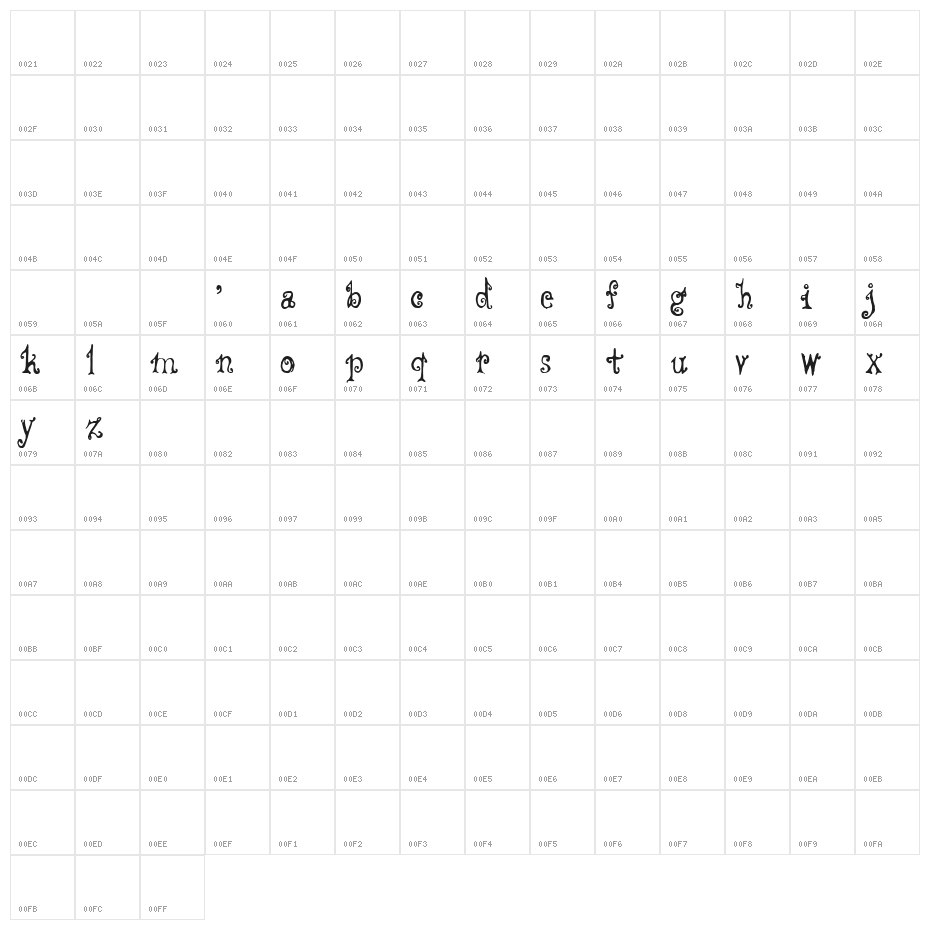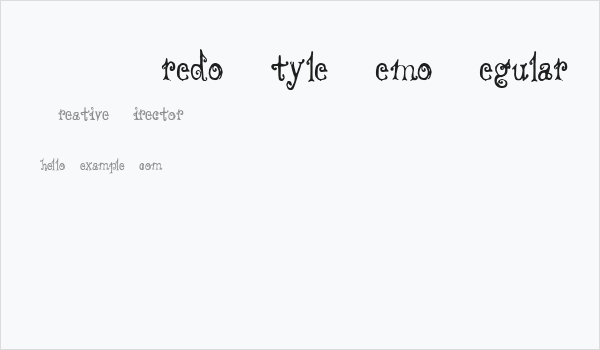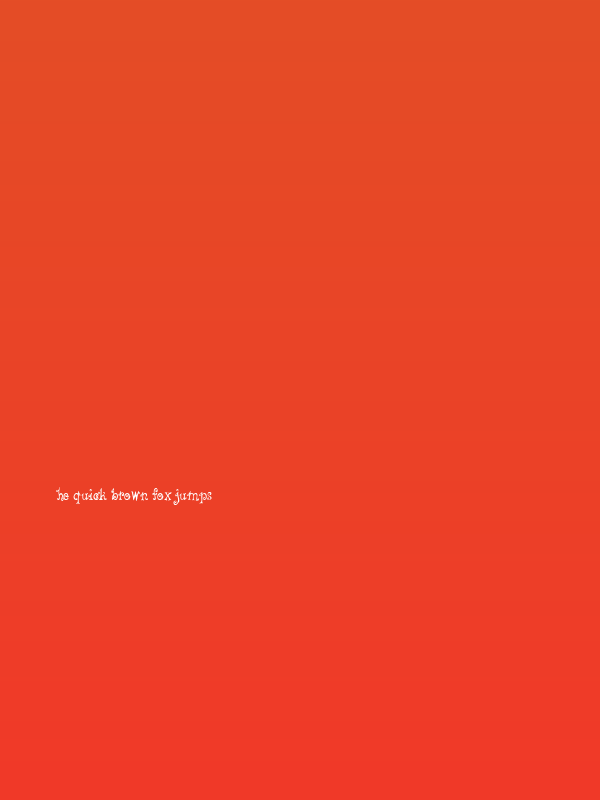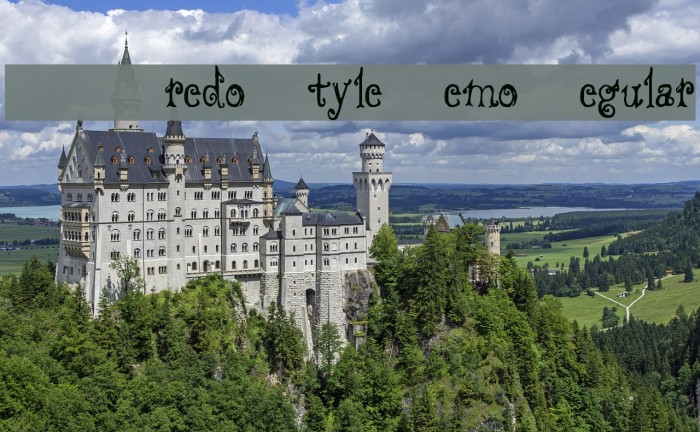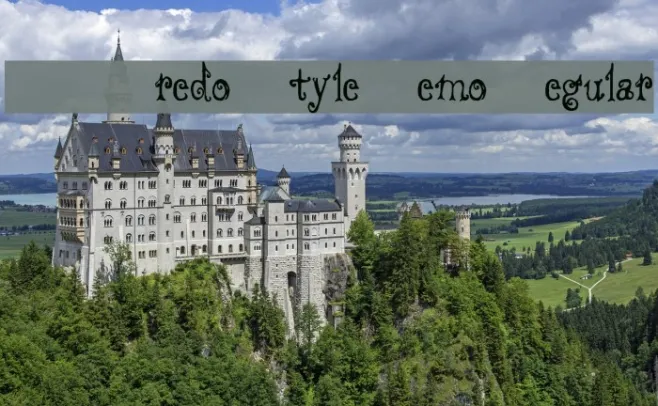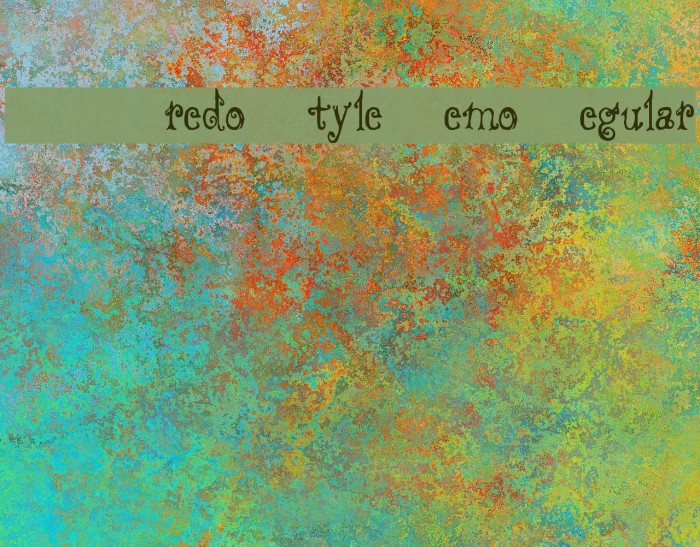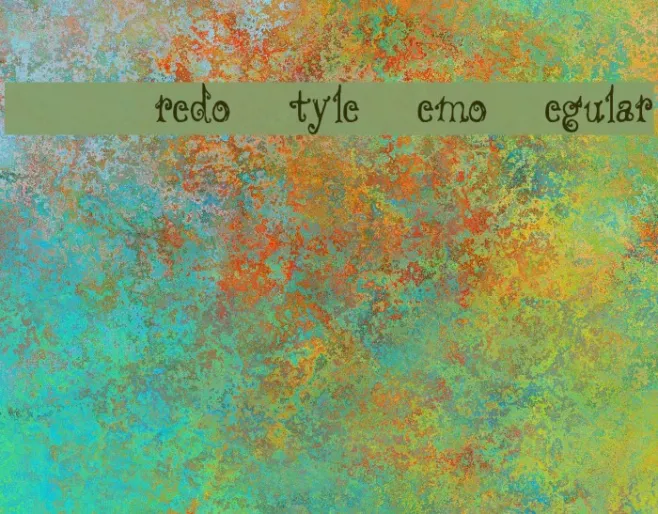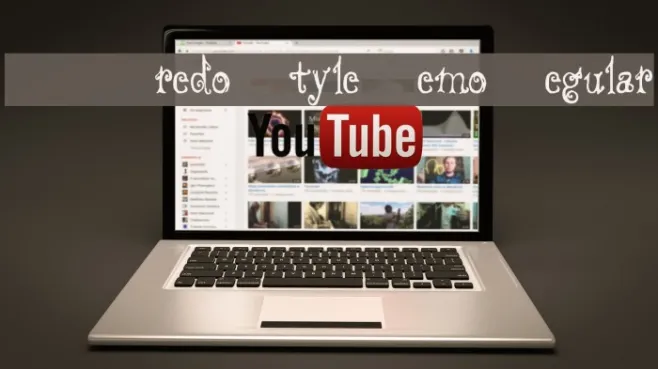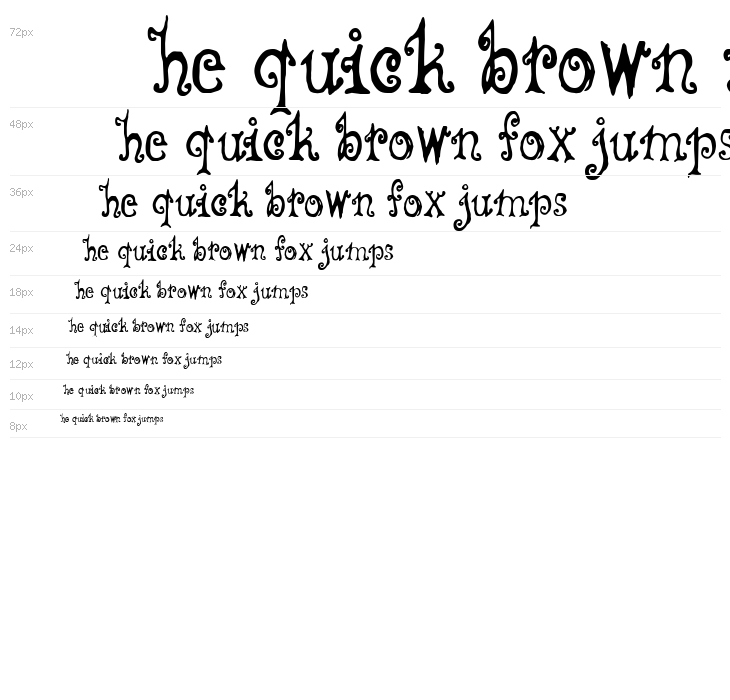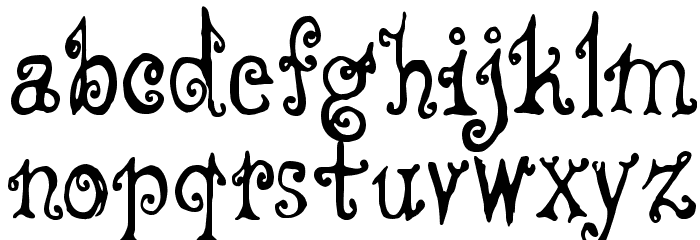
CF Fredo Style Demo Regular Font
CF Fredo Style Demo Regular Description
This font features a whimsical and decorative style, characterized by its playful and curly letterforms. Each character is uniquely designed with intricate swirls and loops, giving it a hand-drawn appearance. The font maintains a consistent baseline, while the varying heights and embellishments add a dynamic and artistic flair. The overall design is reminiscent of fairy tales or fantasy themes, making it suitable for creative and imaginative projects. The strokes are moderately thick, providing a bold presence without overwhelming the design. This font is ideal for capturing attention and adding a touch of magic to any text.
| Proposed Projects | Perfect for children's books, fantasy-themed designs, invitations, and creative branding. |